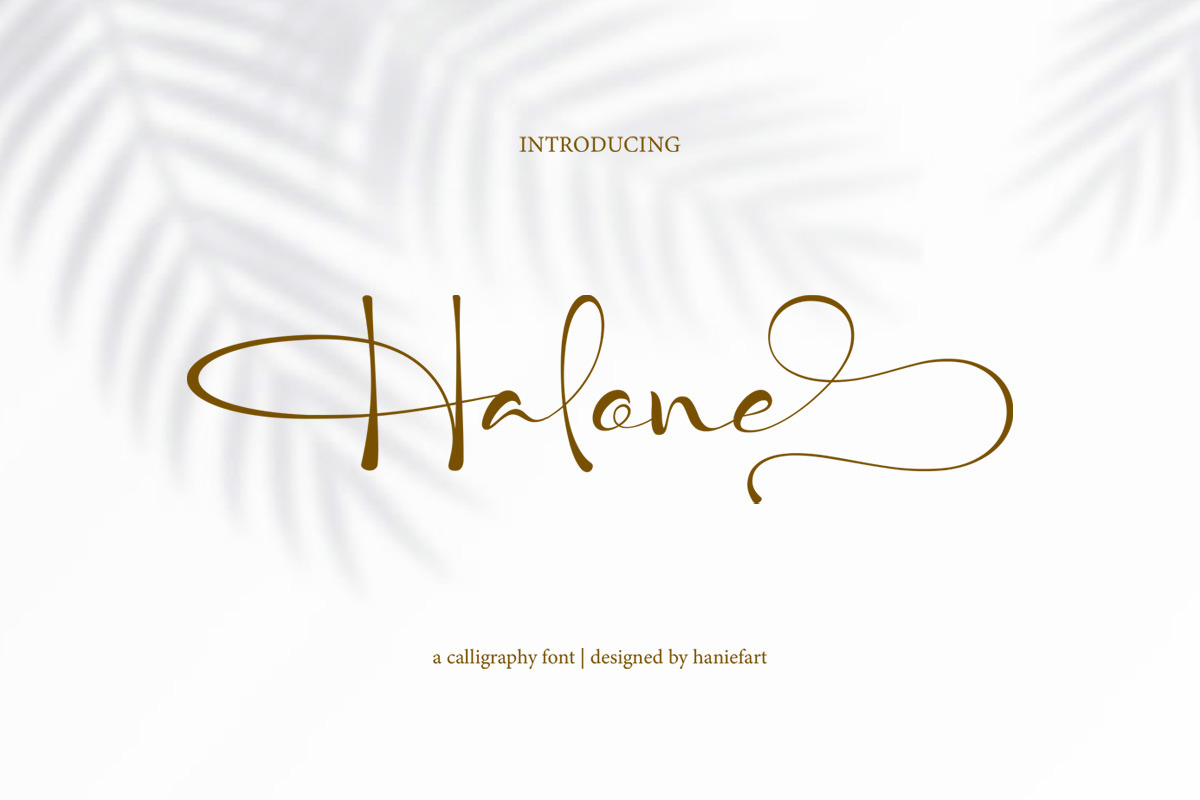
Halone - Calligraphy Font Script
Halone is a handwritten typeface that exudes a stunning and beautiful charm that can adapt to seamlessly enrich a variety of designs, from eye-catching logos and stylish apparel designs to eye-catching magazine covers and refined invitation cards. With its blend of elegance and calming warmth, Halone gives your client’s projects the extra touch they need to stand out from the crowd. Its allure adds a creative spark to bold headlines or eye-catching flyers, transforming any endeavor into an artistic masterpiece. Let Halone Font sprinkle its magic into your work, evolving each project into an expressive work of art.